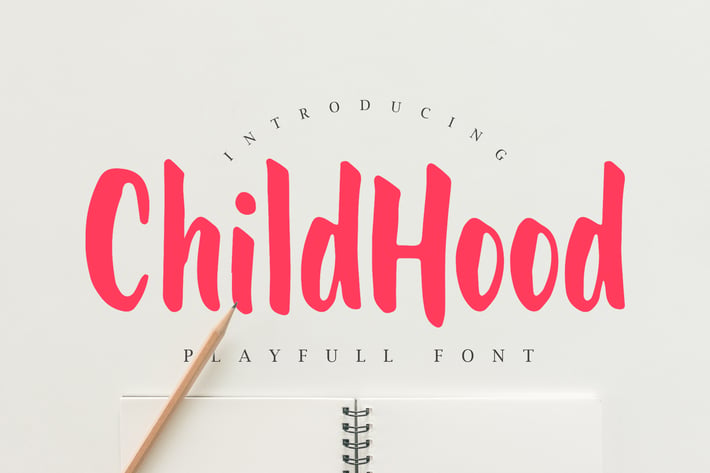
Childhood - Fun and Playful Font
Childhood is perfect to use for Logotype, Letterhead, Poster, Apparel Design, Label and etc.
The alternative characters were divided into several features such as Stylistic Alternates and Ligature.
Fonts include Multilingual Support